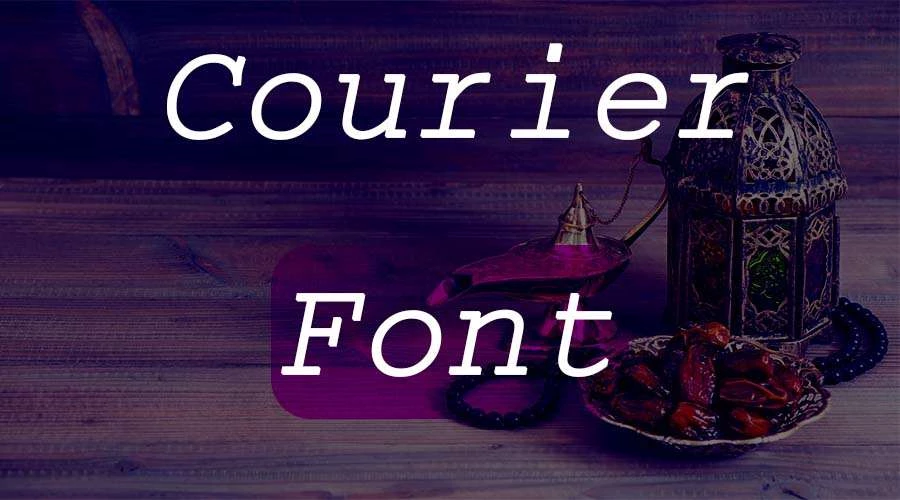
Courier is a monospaced slab serif font designed by Howard Kettler. He created the font for IBM’s typewriters in 1956. But, IBM did not trademark the name Courier. Courier fonts have many alternative fonts that we mentioned in the Similar Fonts section. But beyond all this, there is also some monospaced typeface (Liberation Mono, Cousine Croscore font) which has a similar looking typeface of Courier.
Courier font is very much perfect for official work like documents, letterheads, and printing purposes. This font is also used for unofficial purposes. You can easily create logos, banners, brochures, posters, presentations, etc. with this font.
This font is ideal for book printing. Courier font is easily caught in the eyes of the viewers so this font is used more in books. YouTubers can also use this font for their youtube content. They can make an attractive thumbnail and channel art with the help of this font.
Is there any font similar to Courier in Google Fonts?
Ans: Courier Prime is mostly similar to Courier in Google fonts.